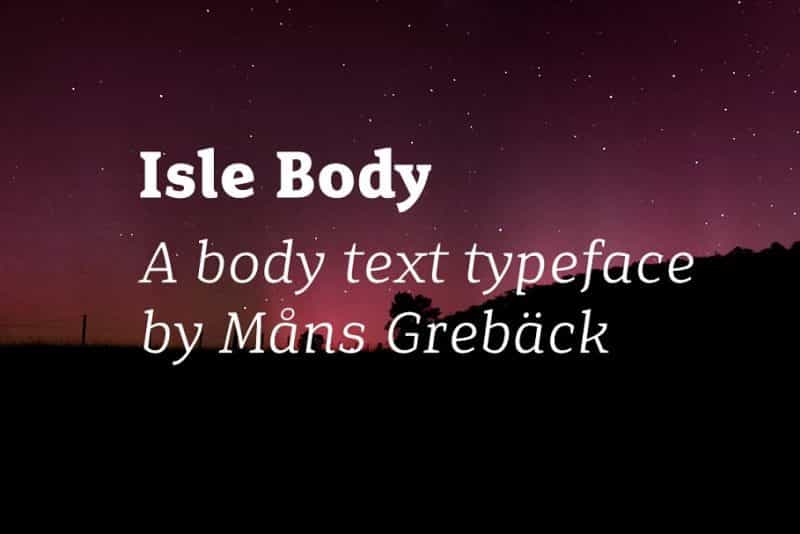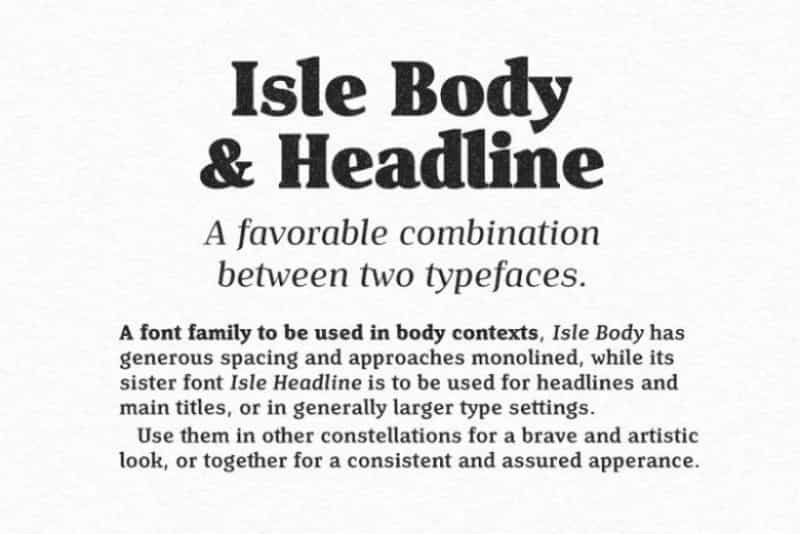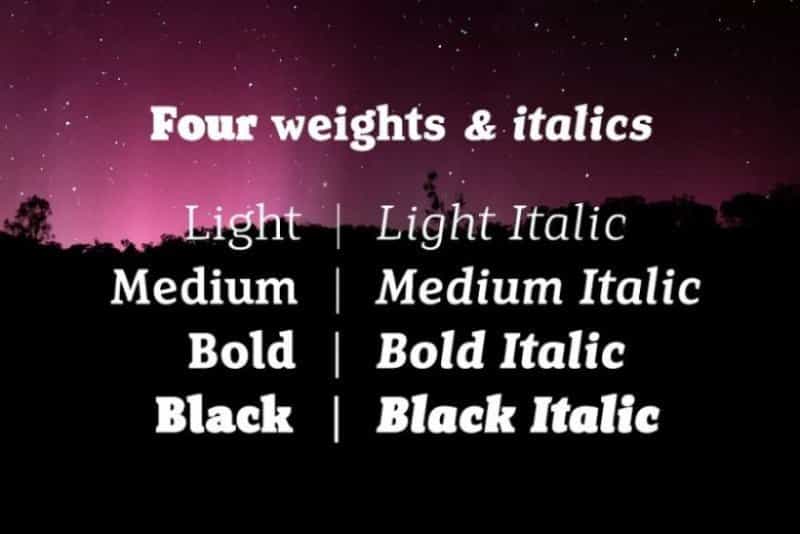
Hello there:) Isle Body is a body text typeface. Isle Body is a gorgeous serif typeface family, designed by Mans Greback in 2018 and 2019. It is a pleasant font with a relaxed and peaceful look, wide spacing, and an even weight which makes it perfect for body texts and small sized settings.